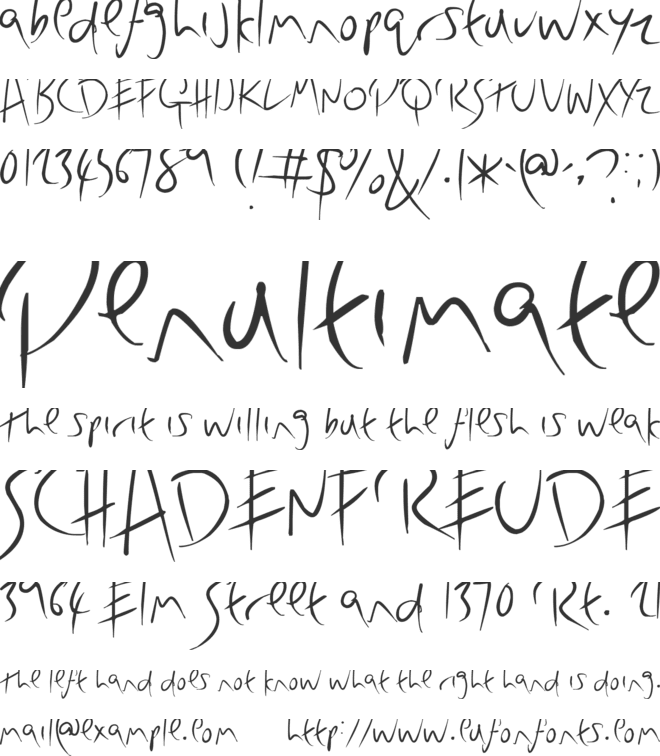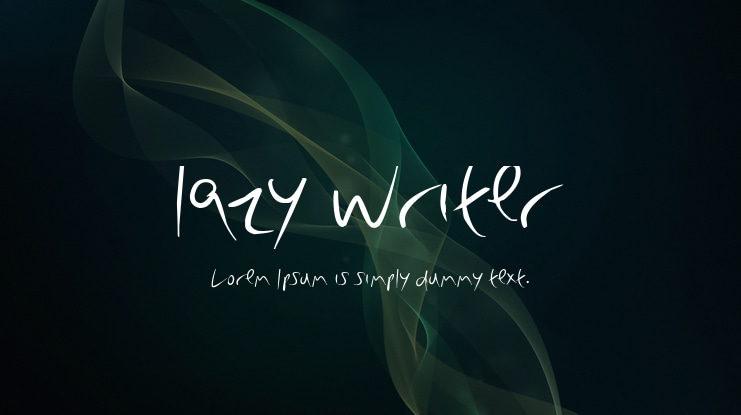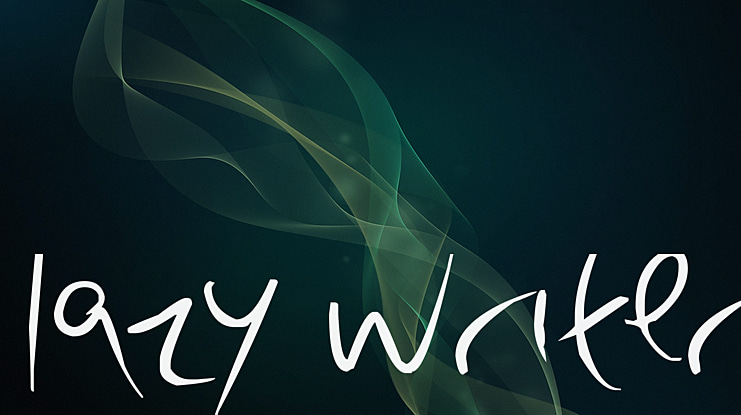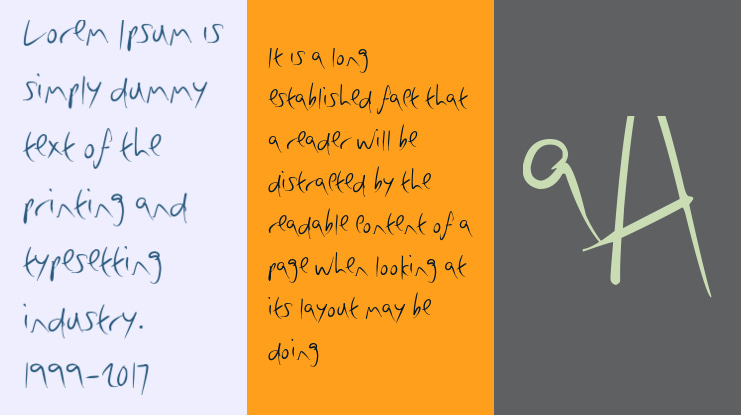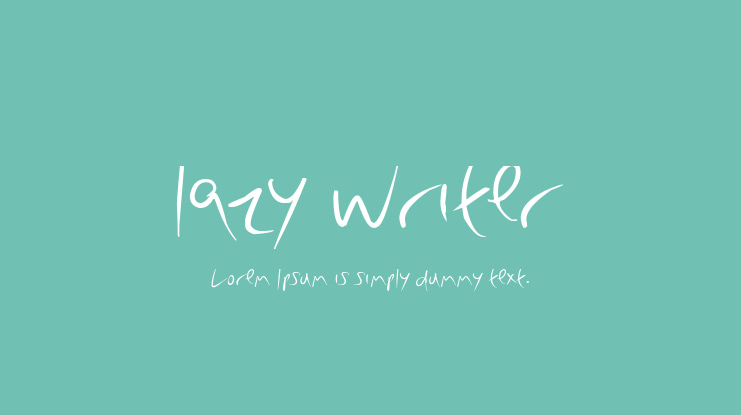
lazy writer Font
Heya! Thanks for downloading my font design. Ive been looking for this design for quite a while (writing in a quick hand sketch way)
After not being able to find it, I Decided I would create it. After that I thought, why not put it on here, just in case others are looking for it too.